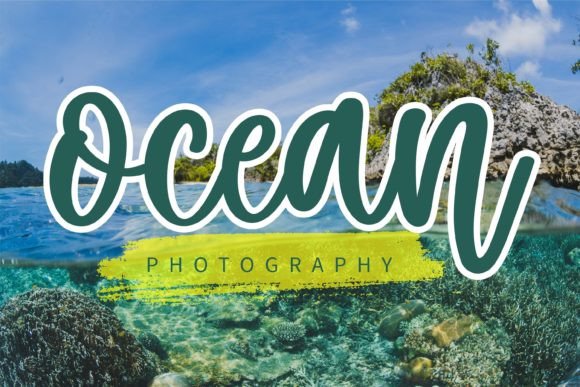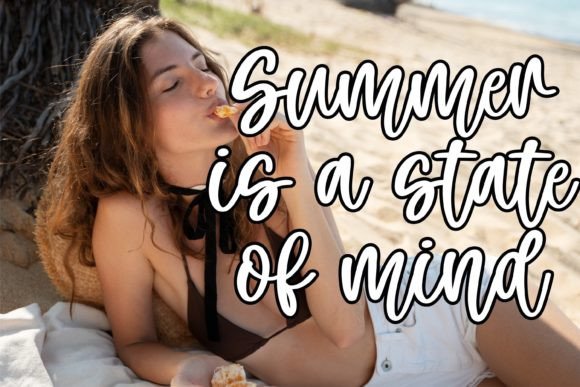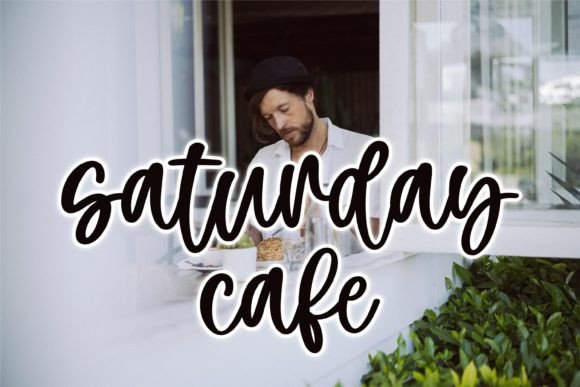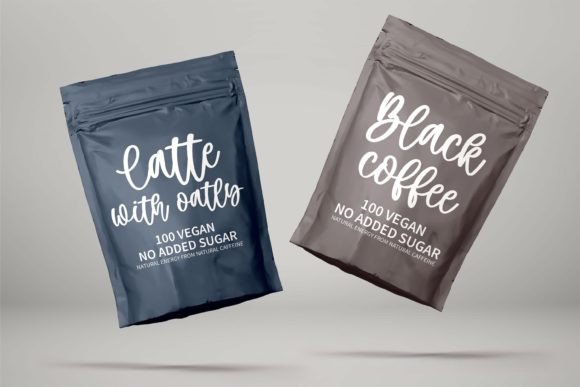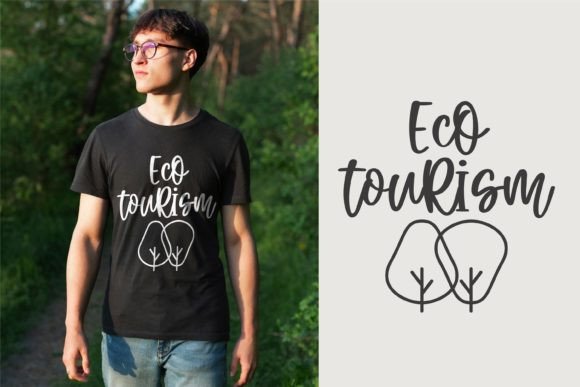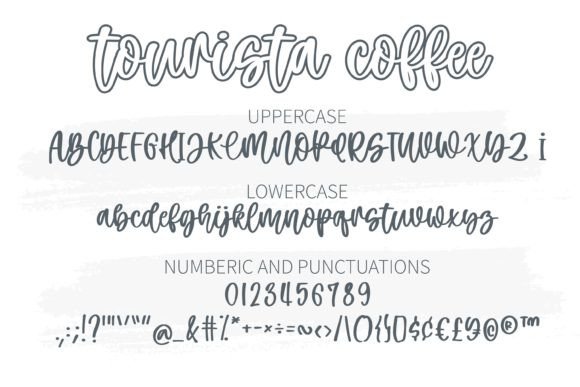
Tourista Coffee Font
Tourista Coffee is a sweet and cute handwritten font. Fall in love with its incredibly versatile style and use it to create gorgeous wedding invitations, beautiful stationary art, eye-catching social media posts, and much more!